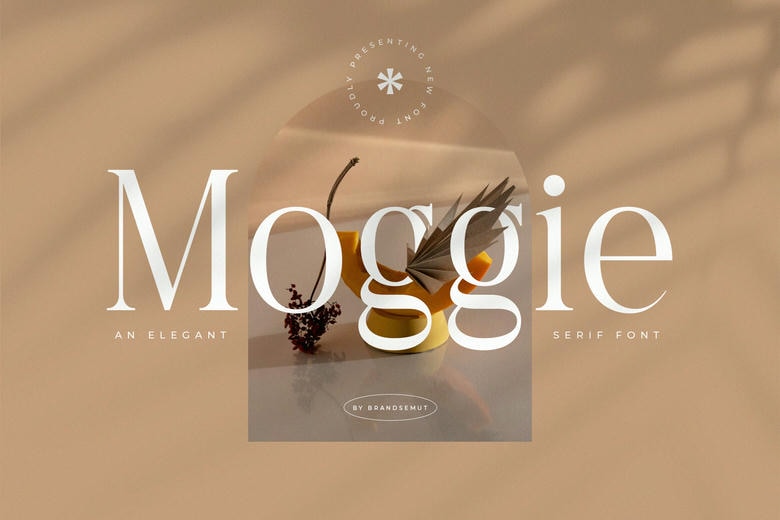
Moggie Font
Moggie is a modern serif font that came in as elegant and artistically fashionable. Featuring full uppercases and lowercases, Moggie has a rounded shape and smooth lines, as well as a high contrast of the strokes that produces a playful juxtaposition of fragility and confidence to suit branding in the luxury market, magazine titles, wedding invitations, beauty packaging and other applications.
Moggie Serif Font